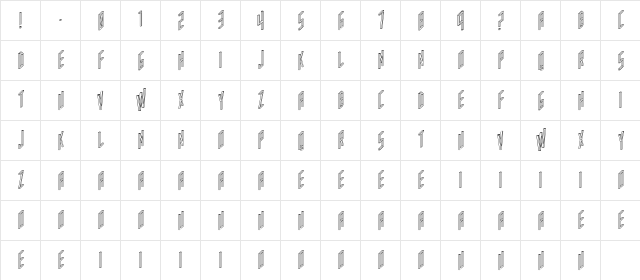
AC Framed Outline
| Style | Outline |
| Foundry | Adrian Candela |
| Designer | Adrian Candela |
Design Context for AC Framed Typeface
AC Framed brings ornamental detail and strong personality to headlines and identities, where visual impact matters more than quiet functionality.
Font Pairing: Pair with a clean neutral sans-serif for body copy to let AC Framed's character lead without overwhelming the composition.
Pro Tip: Use AC Framed exclusively at display sizes — it was designed to be seen, not read at length. Let a neutral companion handle body copy.